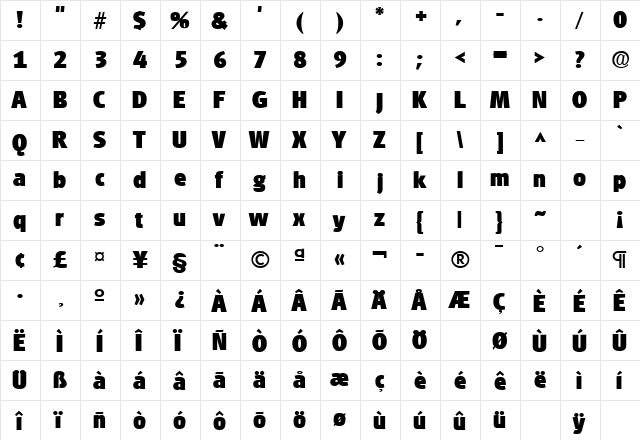
GlasgowLH Bold
Design Context for GlasgowLH Typeface
GlasgowLH is a composed and adaptable typeface that performs quietly and consistently across a wide range of design contexts. Its bold stroke weight gives it real presence on the page.
Pro Tip: Pair GlasgowLH with a font of contrasting weight or personality to build a more expressive typographic hierarchy.